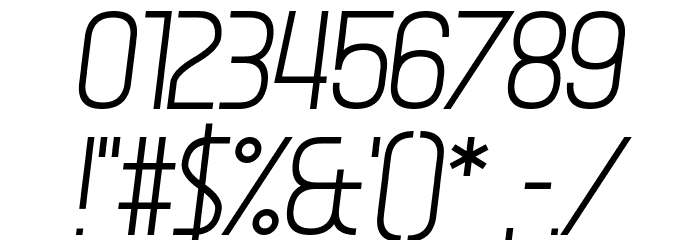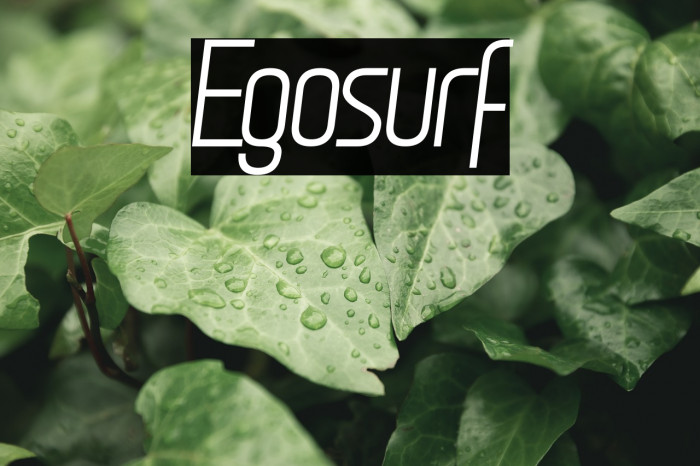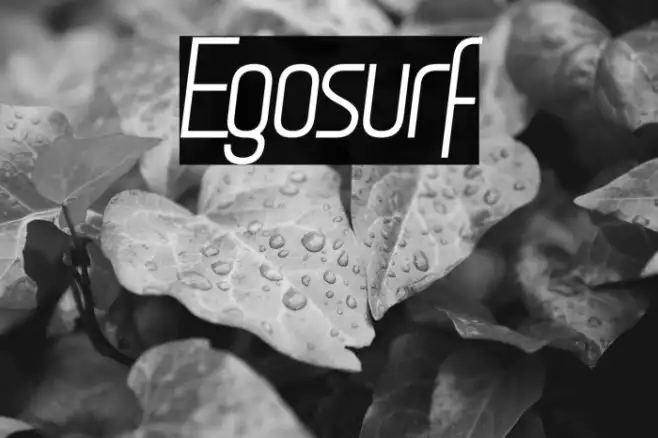
Egosurf Font
This font features a sleek, modern design with elongated, narrow characters that convey a sense of elegance and sophistication. The uppercase and lowercase letters maintain a consistent height, contributing to a uniform appearance. The numerals are distinct and clear, ensuring readability. Special characters are integrated seamlessly, enhancing the font's versatility. The overall design is minimalistic yet impactful, making it suitable for a variety of applications.
A sleek, modern font with elongated, narrow characters and a minimalistic design.
- Proposed Projects: Ideal for branding, editorial design, and modern web interfaces. Suitable for projects that require a contemporary and sophisticated look.
- Use Case: Headlines, Logos, Editorial design